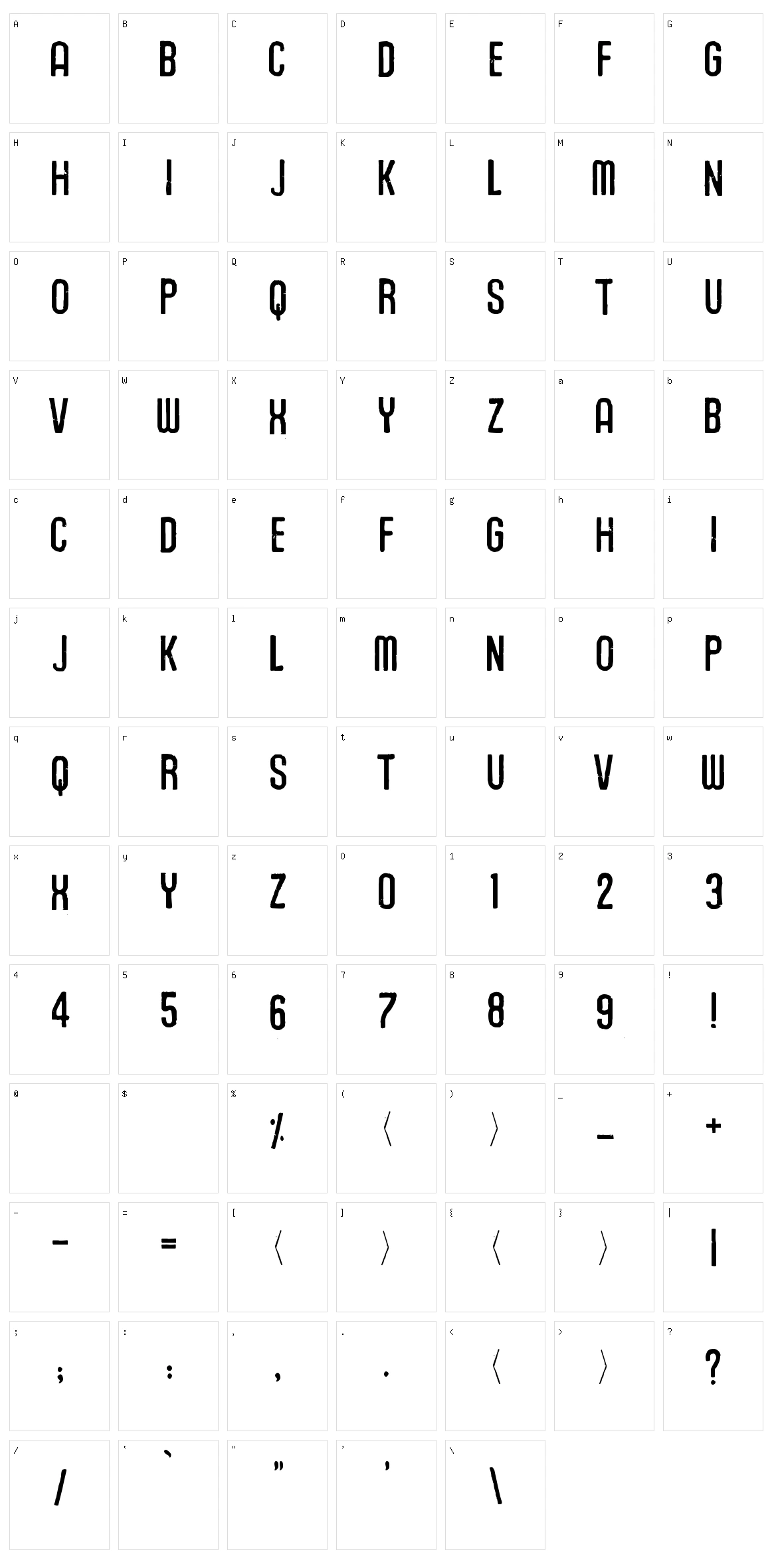
The free font Union Agrochem is carefully designed by Polenimschaufenster, showcasing a thoughtful balance of creativity and usability and falls under the Eroded font style. When you download the ZIP file, it contains only 10.43 KB of font files, making it lightweight and quick to download. Please review the license details below to understand permitted usage and distribution rights. If license information is not available, we recommend using this font for personal projects only or contacting the author directly for commercial usage permissions.